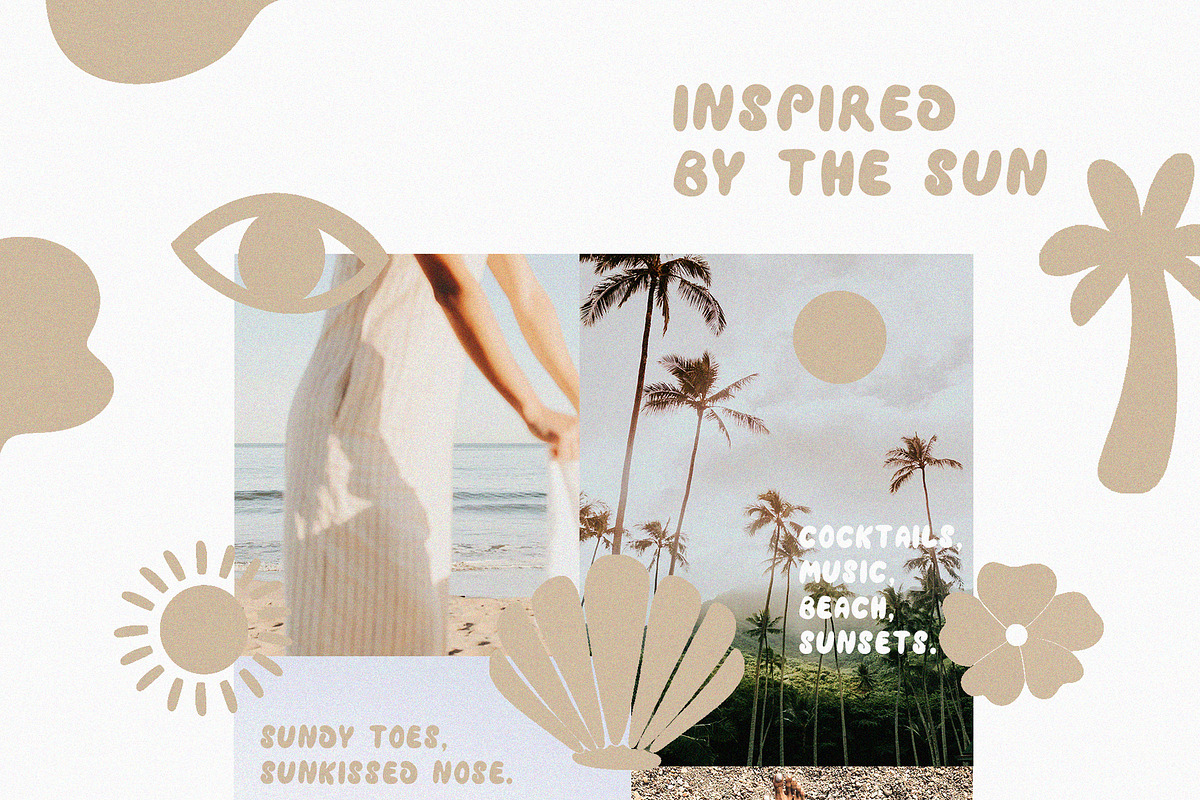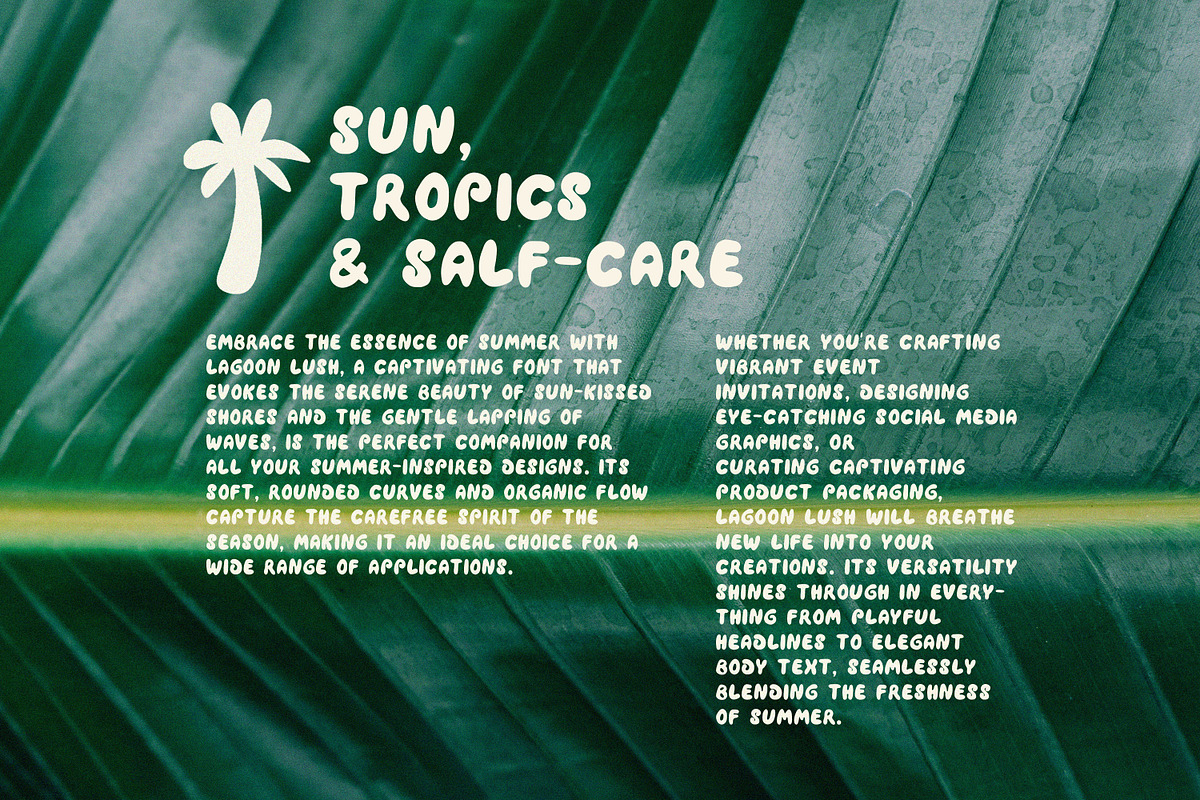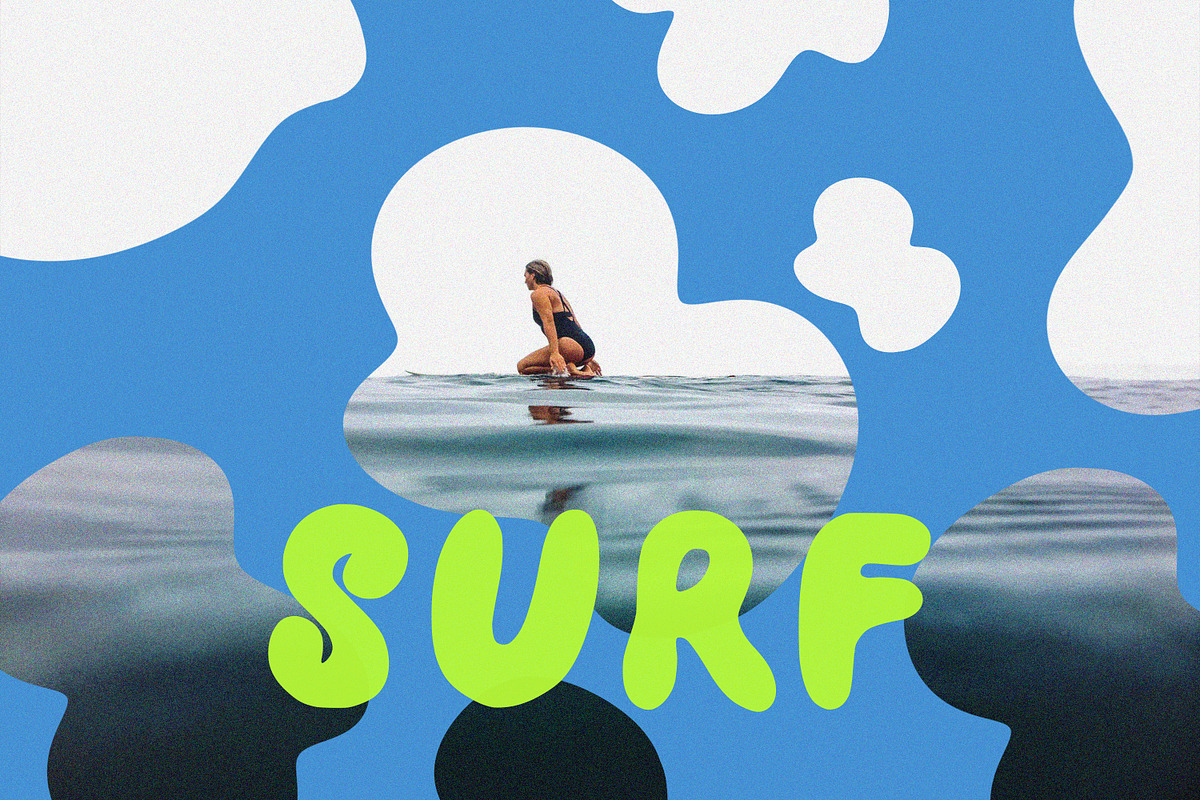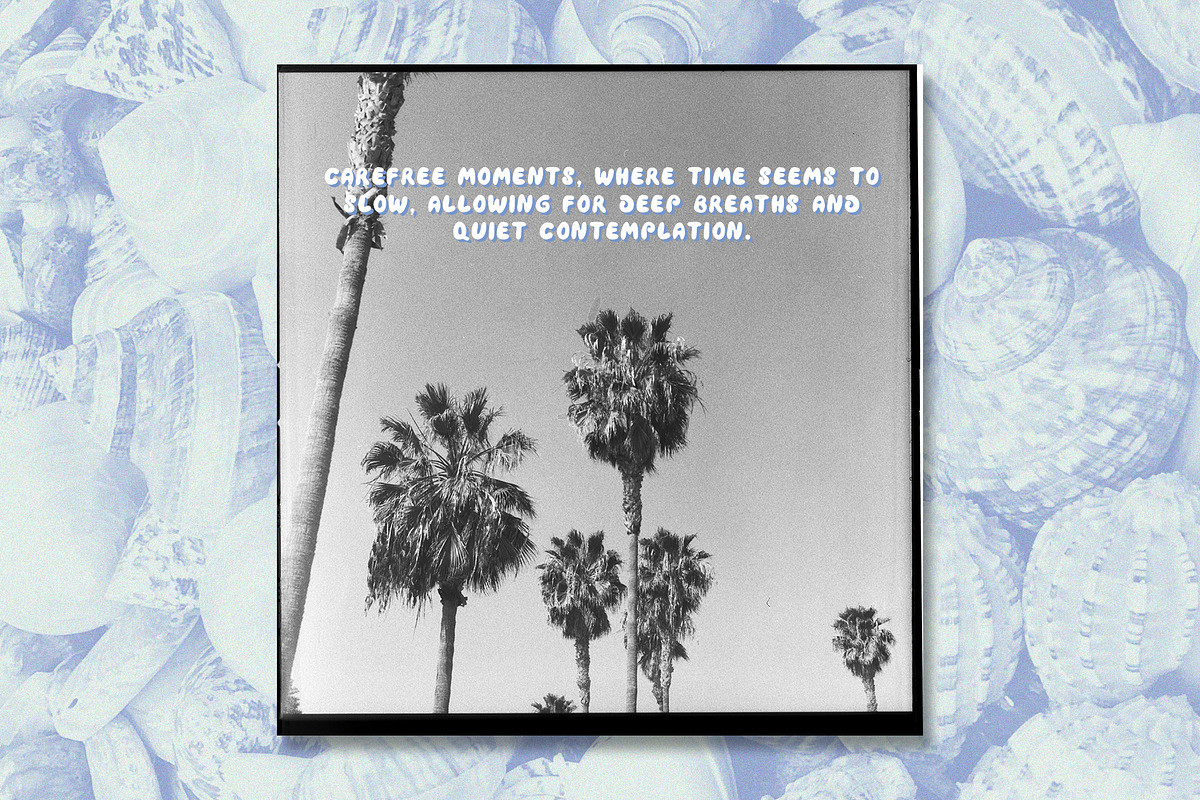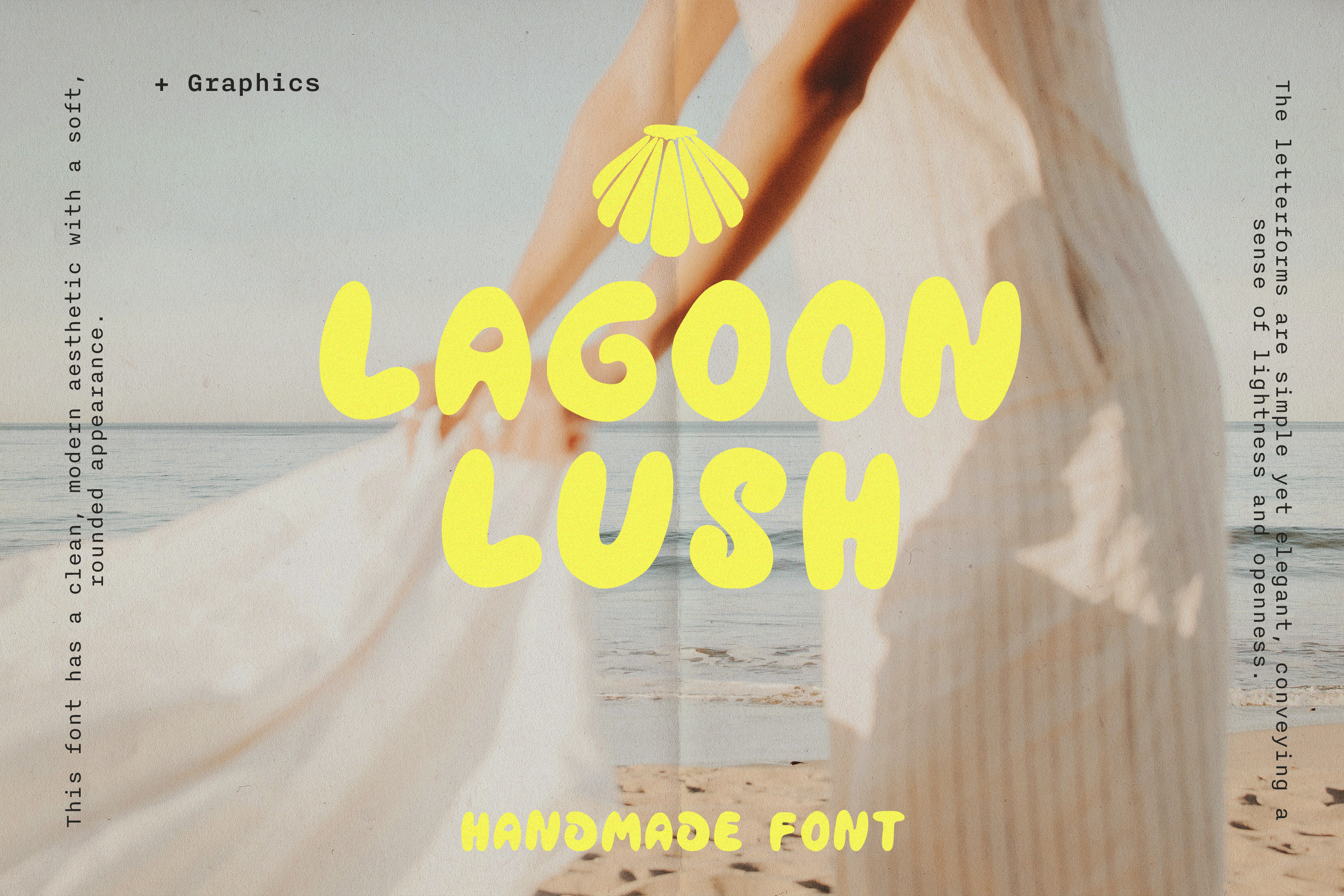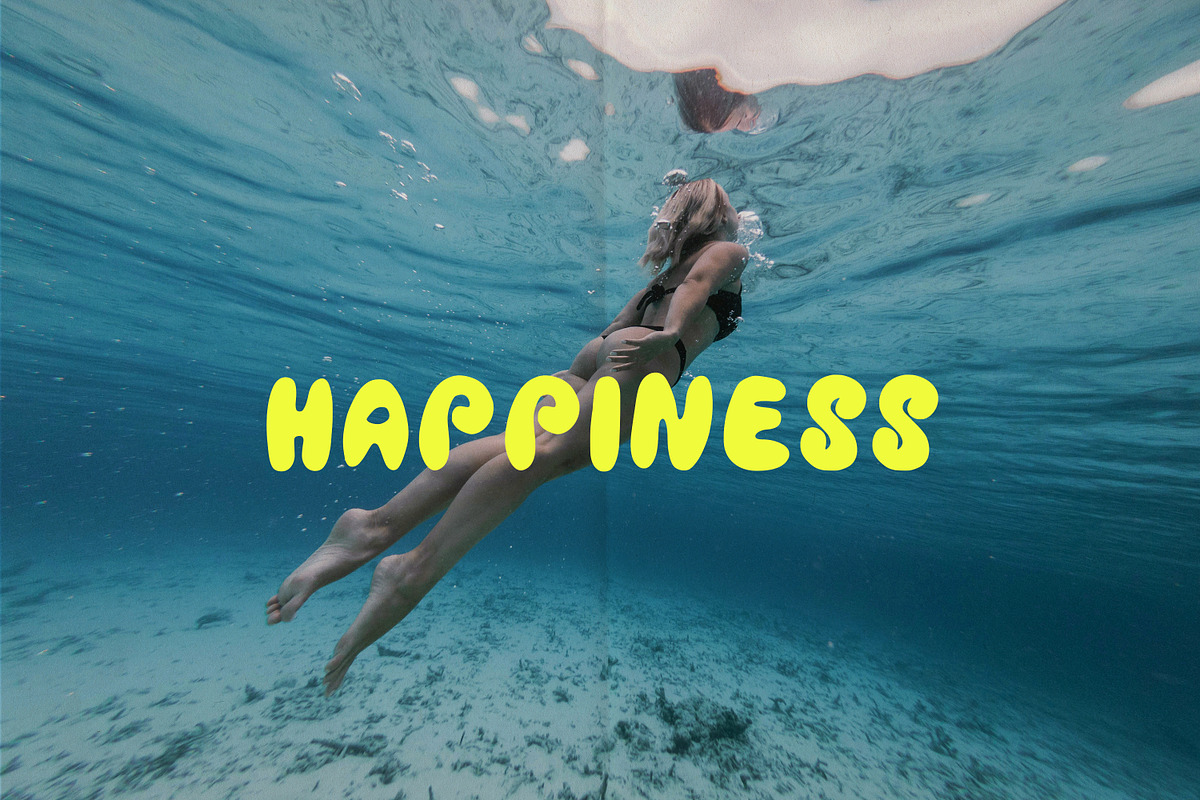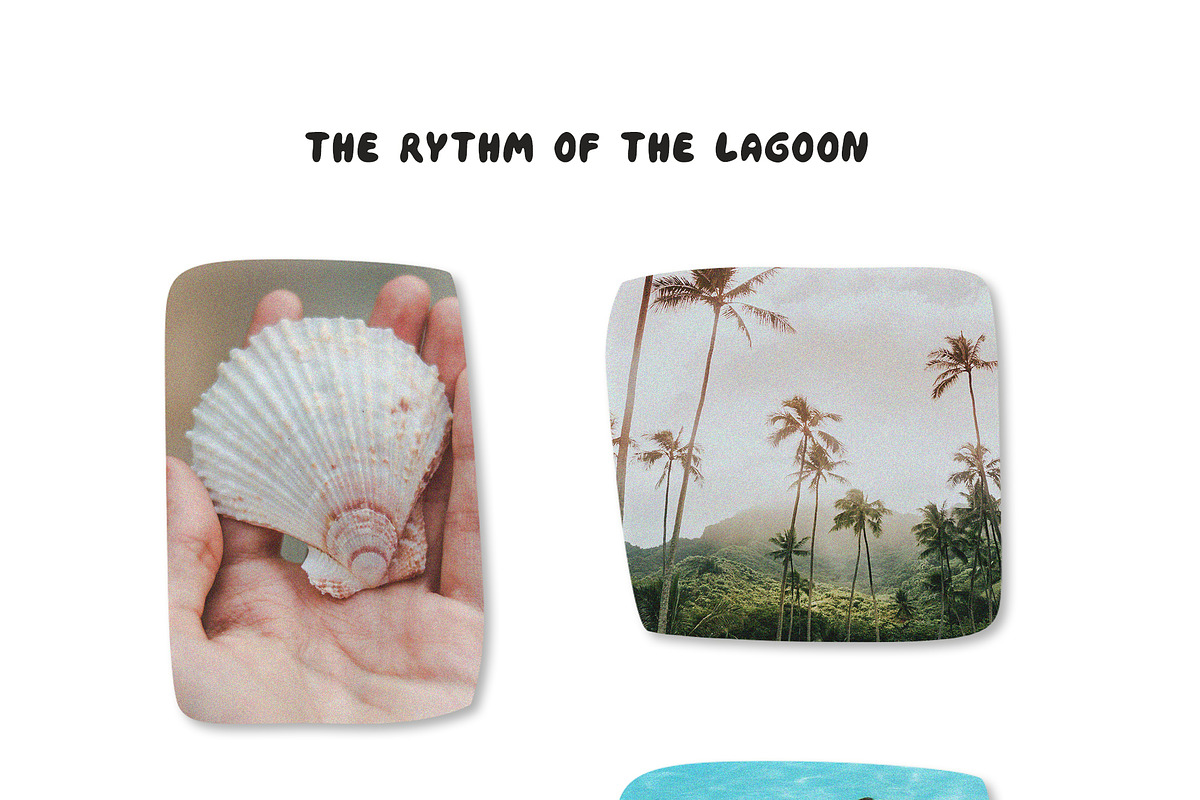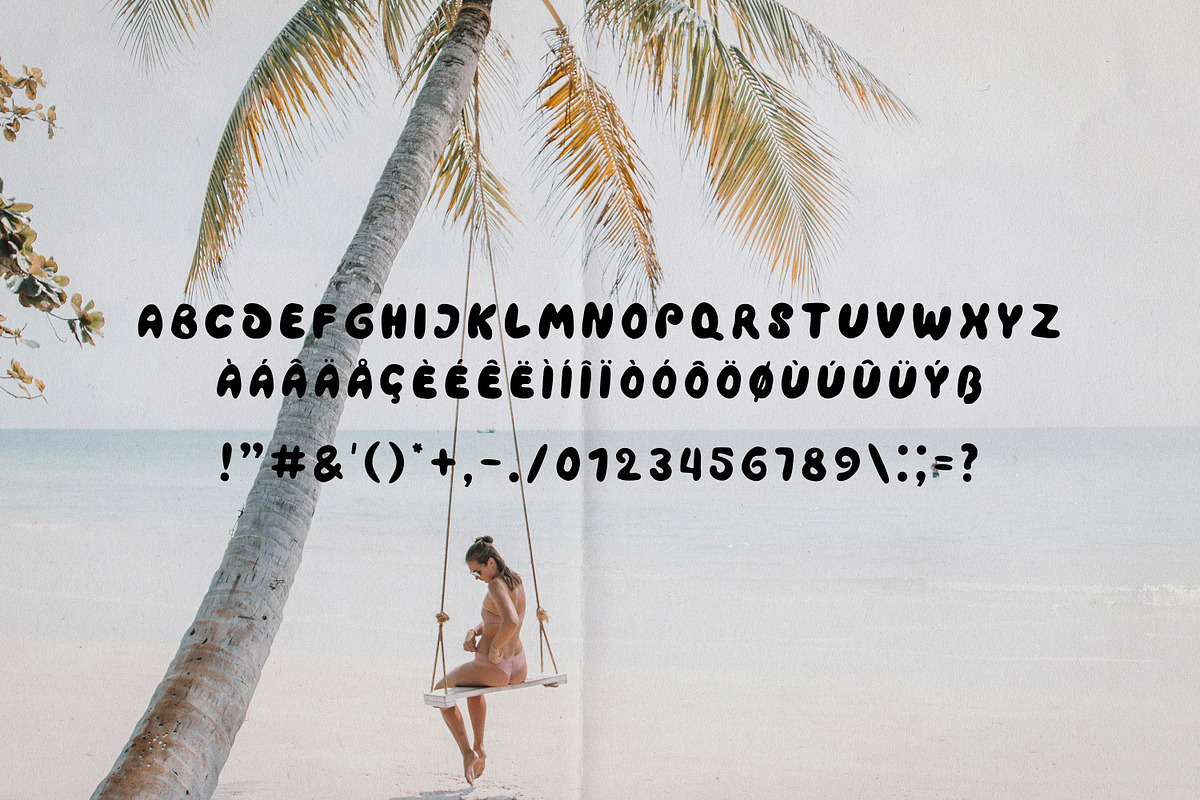
Lagoon Lush Bold Handmade Font
The Lagoon Lush font exudes a warm, breezy ambiance perfect for your summer design projects. Its soft, organic curves and playful character lend a sense of laid-back sophistication, making it ideal for a variety of applications:
- Craft product labels and packaging that evoke the carefree spirit of the season.
- Design eye-catching social media graphics and headers to promote your summer offerings
- Craft elegant event invitations or programs with a touch of seaside charm.
- Use the font for impactful headings, titles, and callouts that stand out on websites - Incorporate Lagoon Lush into marketing collateral like brochures, flyers, and posters.
- Apply the font to custom signage, menus, or other printed materials for a fresh, summery aesthetic With its versatile personality, Lagoon Lush is a must-have addition to your design toolkit, allowing you to effortlessly capture the essence of summer in all your creative projects.